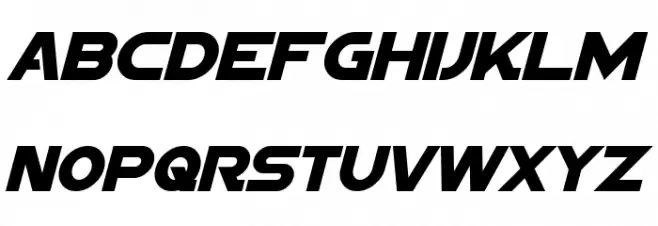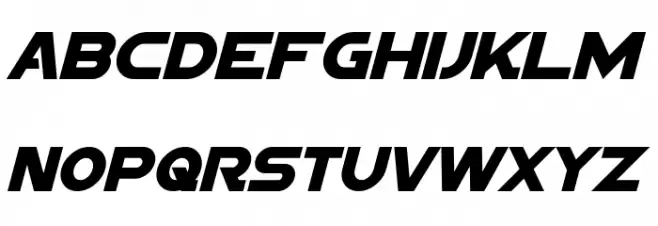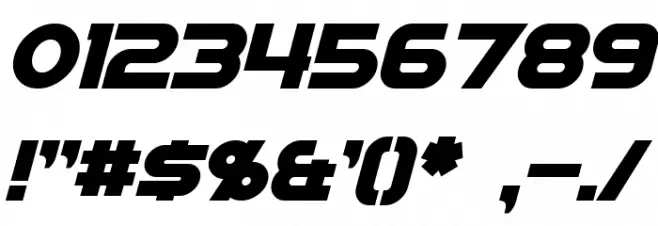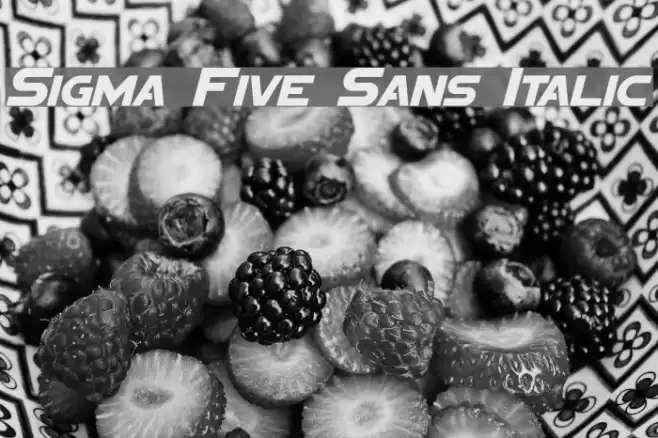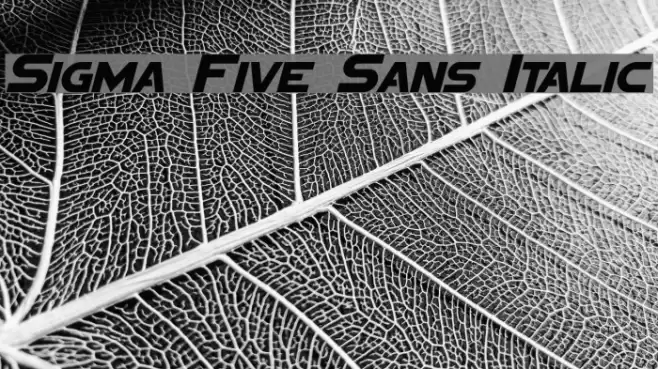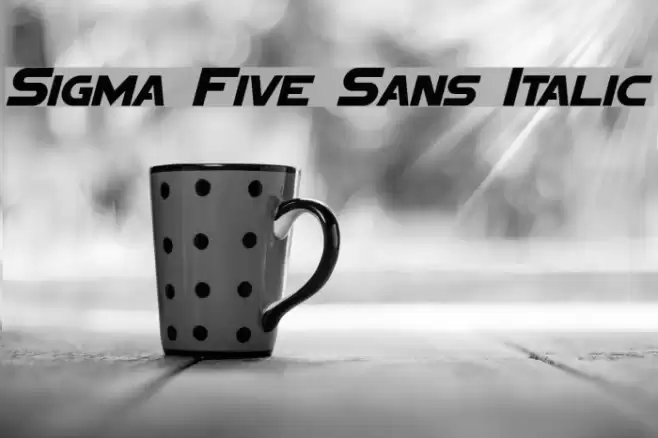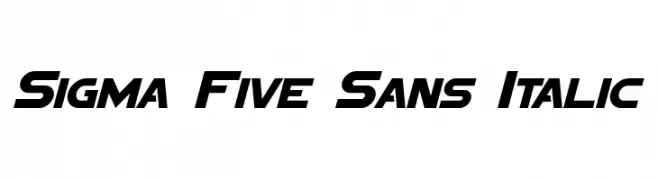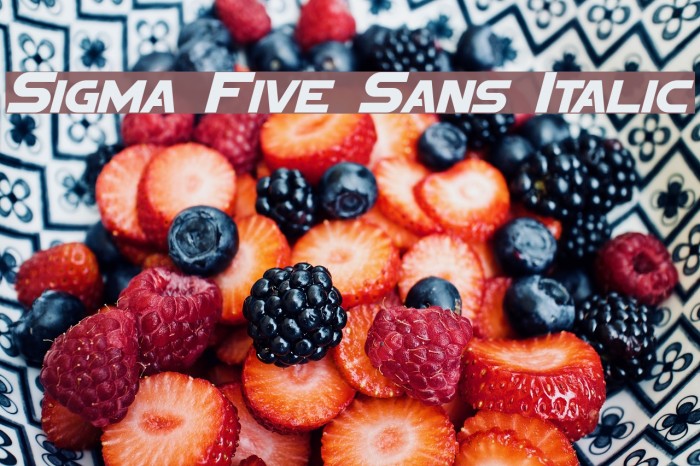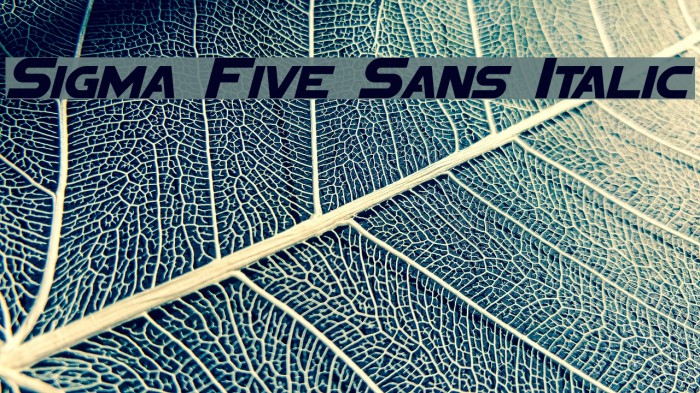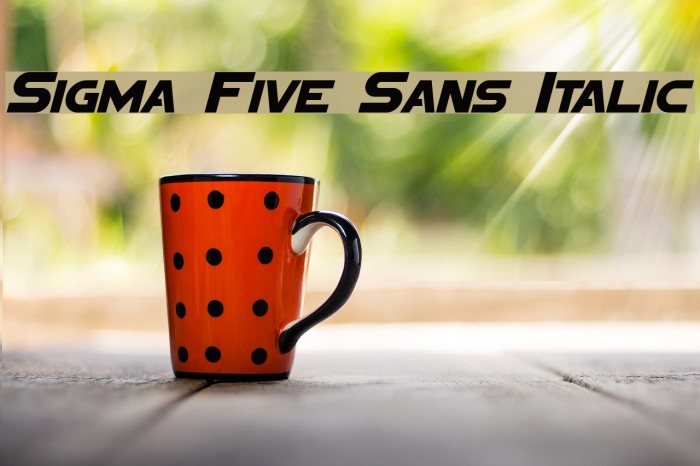
Sigma Five Sans Italic
This font features a bold, italicized style with a modern and sleek appearance. The characters are sans-serif, offering a clean and streamlined look. The letters are slightly slanted, enhancing the dynamic and forward-moving feel. The strokes are thick, providing a strong presence, while the overall design maintains a sense of balance and uniformity. The numbers and special characters follow the same bold and italicized style, ensuring consistency across all glyphs. This font is well-suited for projects that require a contemporary and assertive aesthetic.
A bold, italicized sans-serif font with a modern and dynamic style.
- Proposed Projects: Ideal for branding, advertising, sports-related designs, and modern digital interfaces.